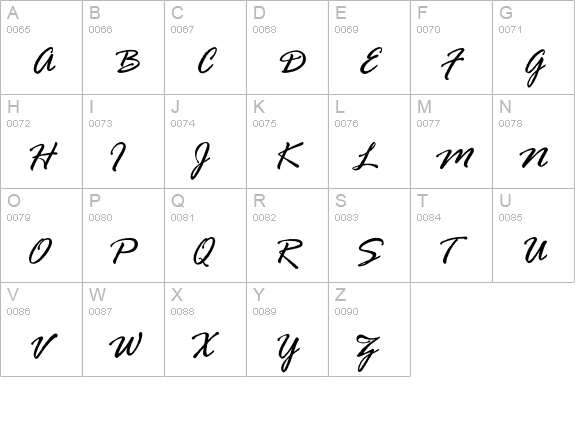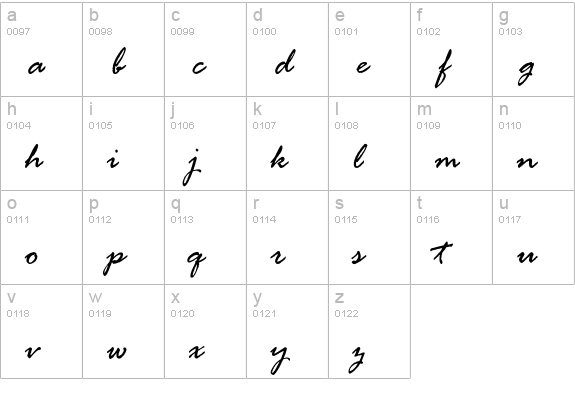
RageItalicEF Font Details
RageItalicEF font is a stunning typeface that beautifully captures the essence of elegance and sophistication. With its sleek and slanted design, this font adds a touch of modernity to any project it is used in. The unique and eye-catching curves of RageItalicEF font make it perfect for creating striking headlines, captivating logos, and stylish branding materials. Its distinct italicized style adds a sense of dynamism and movement to your designs, making them truly stand out. What sets RageItalicEF font apart is not just its exceptional aesthetics, but also its incredible versatility. Whether you are working on a professional presentation, a creative advertisement, or a personal project, this font effortlessly adapts to any context, enhancing the visual impact of your work. One of the best features of RageItalicEF font is that it is freely available to download at FontsMarket.com. This means that you can easily access and utilize this exceptional typeface without any constraints or limitations. Whether you are a professional designer or a creative enthusiast, having access to this font opens up a world of possibilities for your artistic endeavors. So, if you are looking to elevate your designs and make a lasting impression, look no further than RageItalicEF font. Its stunning aesthetics, versatility, and the fact that it is freely available at FontsMarket.com make it a must-have addition to your font collection.